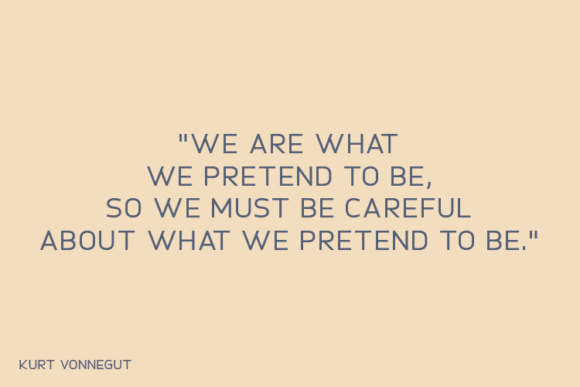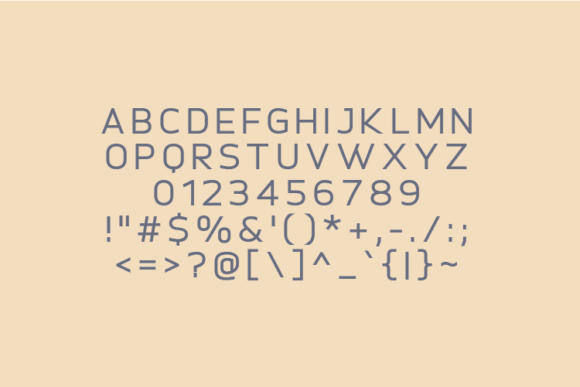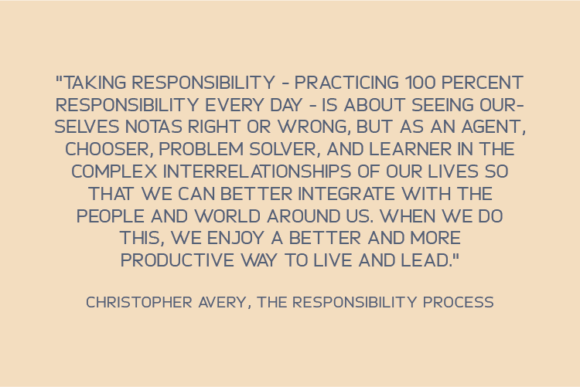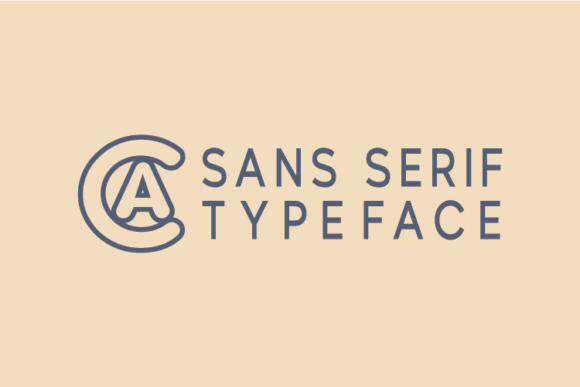
Introducing Aurelius: The Ultimate Modern Sans Serif Typeface
In the world of typography, a font can make all the difference in the aesthetic and tone of a design. For designers and crafters looking for a modern, classy sans serif typeface, Aurelius is the perfect solution. This versatile font is designed to elevate your visual projects, whether it’s for logos, weddings, invitations, quotes, advertisements, print, magazines, and more!
What is Aurelius Font?
Aurelius is a contemporary sans serif typeface that boasts a clean and elegant design. It features a comprehensive character set, including upper characters, numbers 0-9, and a range of punctuation and symbols. This extensive character set makes Aurelius an extremely versatile font, suitable for a wide range of design applications.
Key Features of Aurelius Font
- Modern and Classy Design: Aurelius features a sleek and sophisticated design, perfect for creating modern and stylish visual content.
- Comprehensive Character Set: The font includes upper characters, numbers 0-9, and a range of punctuation and symbols, ensuring that you have everything you need to create stunning designs.
- Versatile and Adaptable: Aurelius is perfect for various design projects, including logos, weddings, invitations, quotes, advertisements, print, magazines, and more!
Use Cases for Aurelius Font
Aurelius is an incredibly versatile font, making it suitable for a wide range of design applications. Here are some use cases where Aurelius shines:
- Logo Design: Create a modern and memorable logo for your brand with Aurelius.
- Wedding and Invitation Design: Add a touch of elegance to your wedding invitations, save-the-dates, and other stationery with Aurelius.
- Advertising and Marketing: Use Aurelius to create eye-catching advertisements, brochures, and marketing materials.
- Print and Magazine Design: Elevate your print and magazine designs with Aurelius, perfect for article headings, titles, and captions.
- Quotes and Typography: Create stunning typographic quotes and posters with Aurelius.
Why Choose Aurelius Font?
With so many fonts available, why choose Aurelius? Here are some compelling reasons:
- Unique and Modern Design: Aurelius offers a fresh and modern take on sans serif typography.
- Highly Versatile: The font’s comprehensive character set and adaptability make it perfect for various design applications.
- Ease of Use: Aurelius is easy to read and works well in both digital and print formats.
Tips for Using Aurelius Font
To get the most out of Aurelius, here are some tips:
- Experiment with Font Sizes: Aurelius works well in various font sizes, from large headings to smaller body text.
- Pair with Other Fonts: Combine Aurelius with other fonts to create visually appealing typographic combinations.
- Play with Colors: Take advantage of Aurelius’s versatility by experimenting with different colors and textures.
Aurelius is a modern, classy sans serif typeface that offers a unique and versatile solution for designers and crafters. With its comprehensive character set, adaptability, and ease of use, Aurelius is perfect for a wide range of design applications. Whether you’re creating logos, wedding invitations, advertisements, or print materials, Aurelius is the perfect choice. So why wait? Discover the power of Aurelius and elevate your designs to the next level!